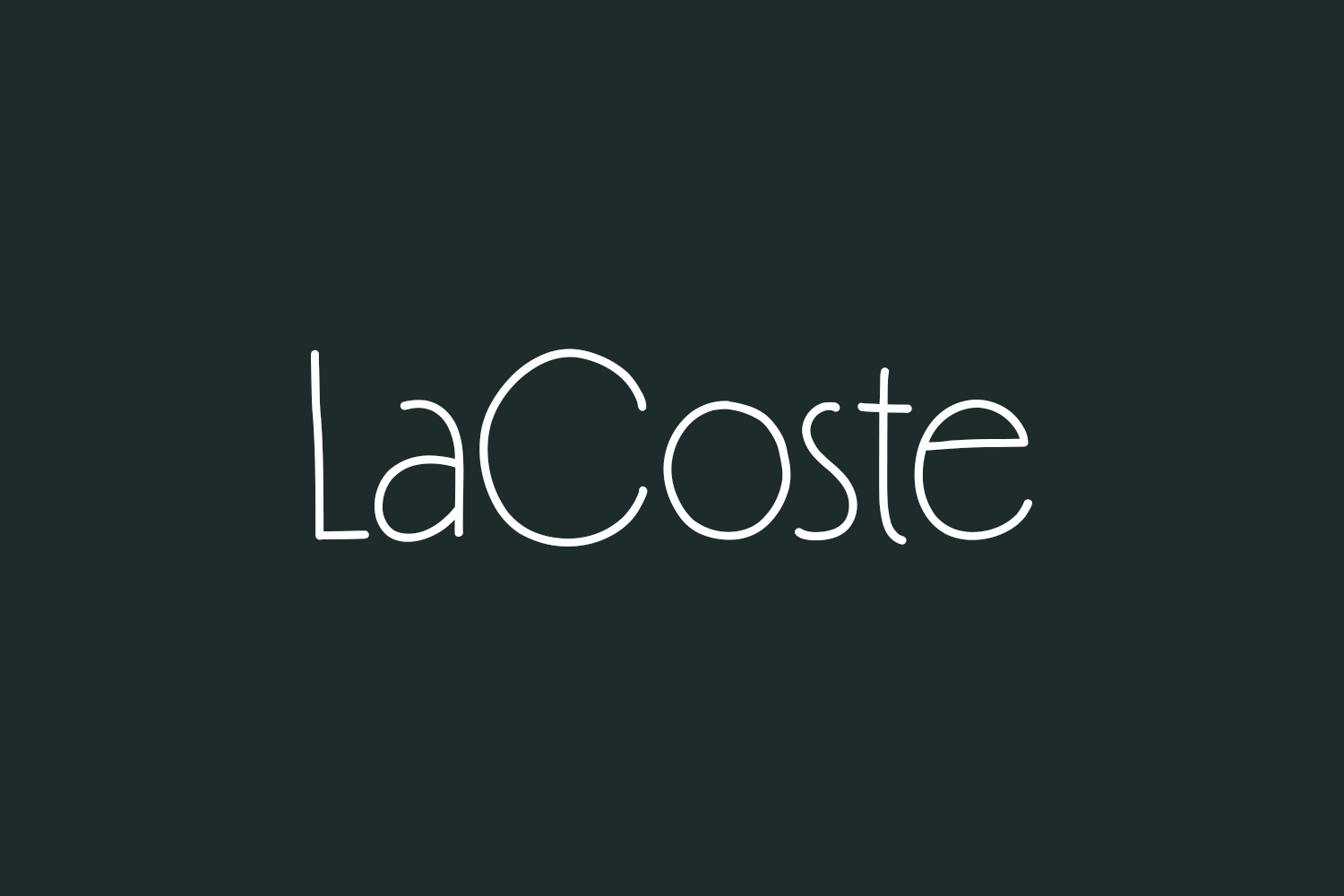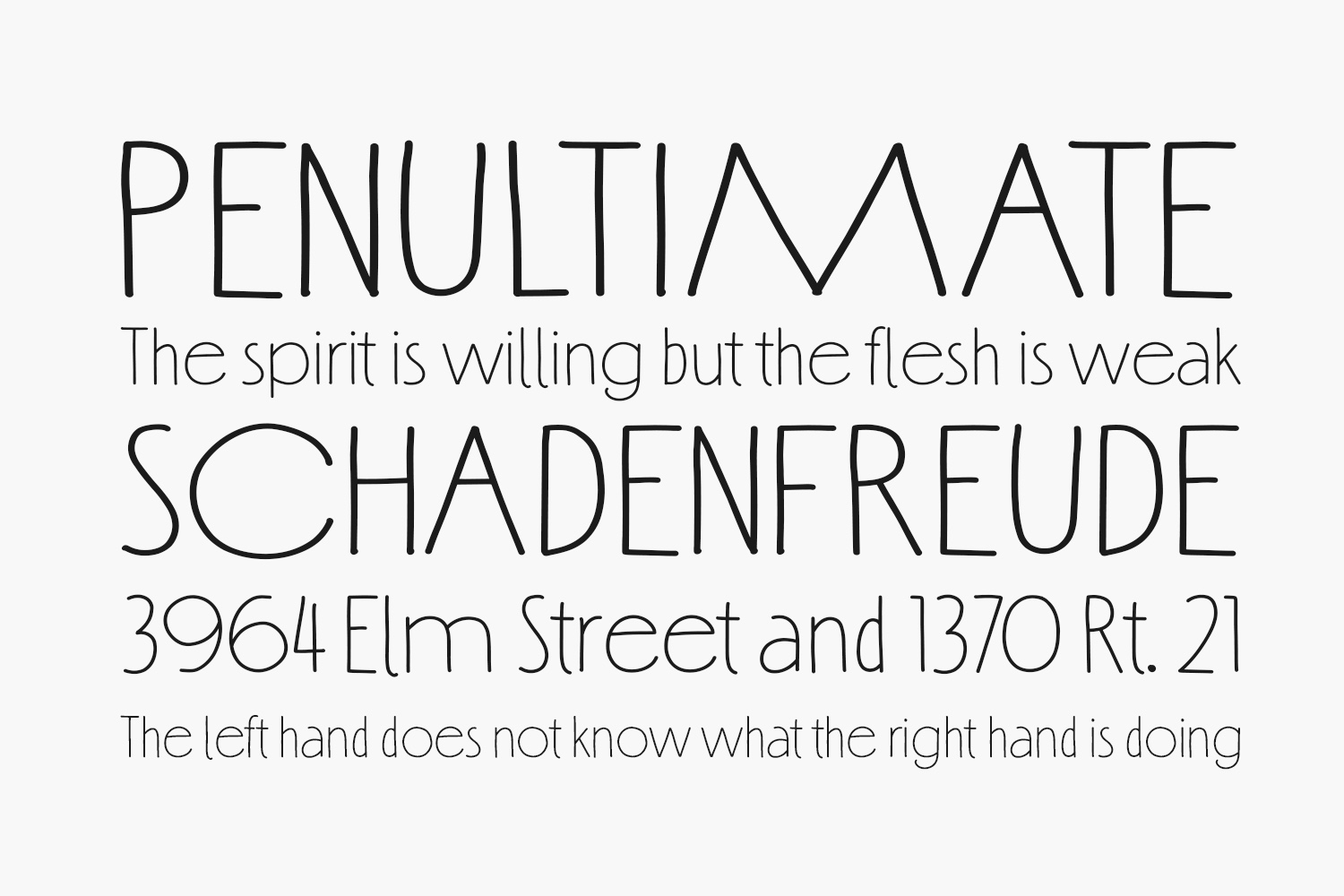
Introducing LaCoste Free Font, a versatile, stylish, and playful handwritten font ideal for diverse applications, including greeting cards, headlines, and more! Infuse your creative projects with the clean and exquisite feel of Lacoste for a touch of sophistication. LaCoste Free Font is free for personal use only. Please purchase the full version for commercial use.